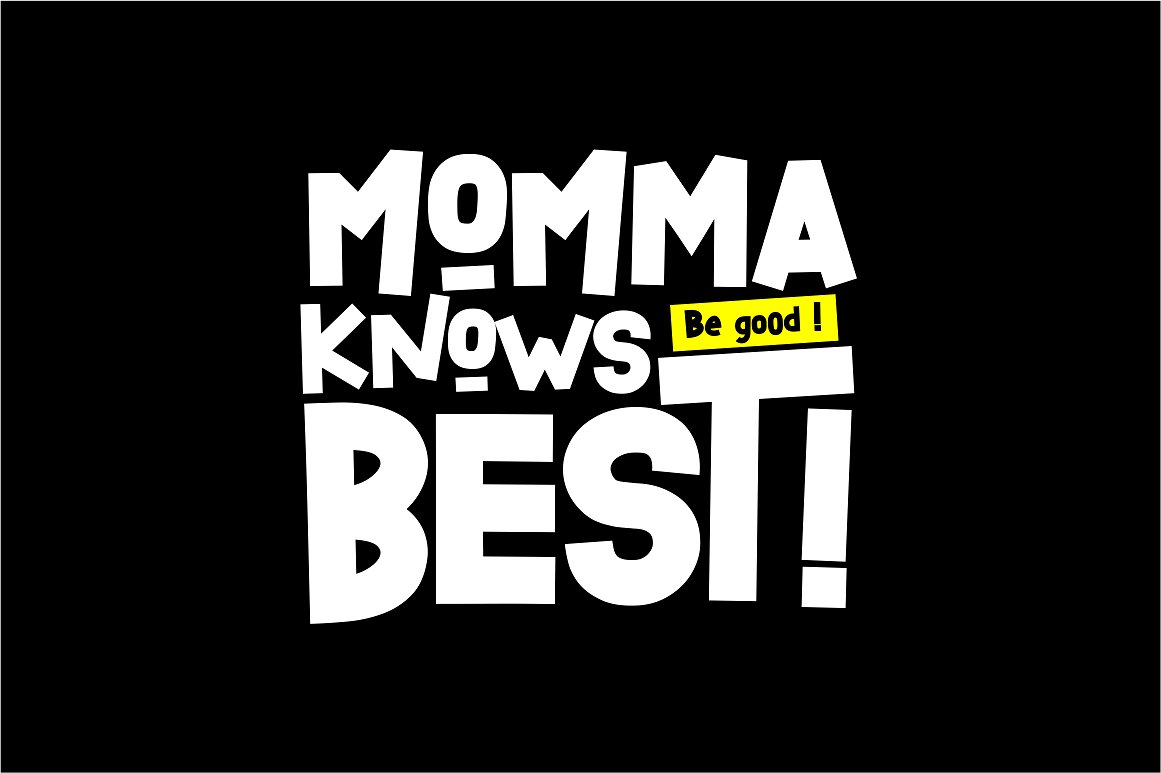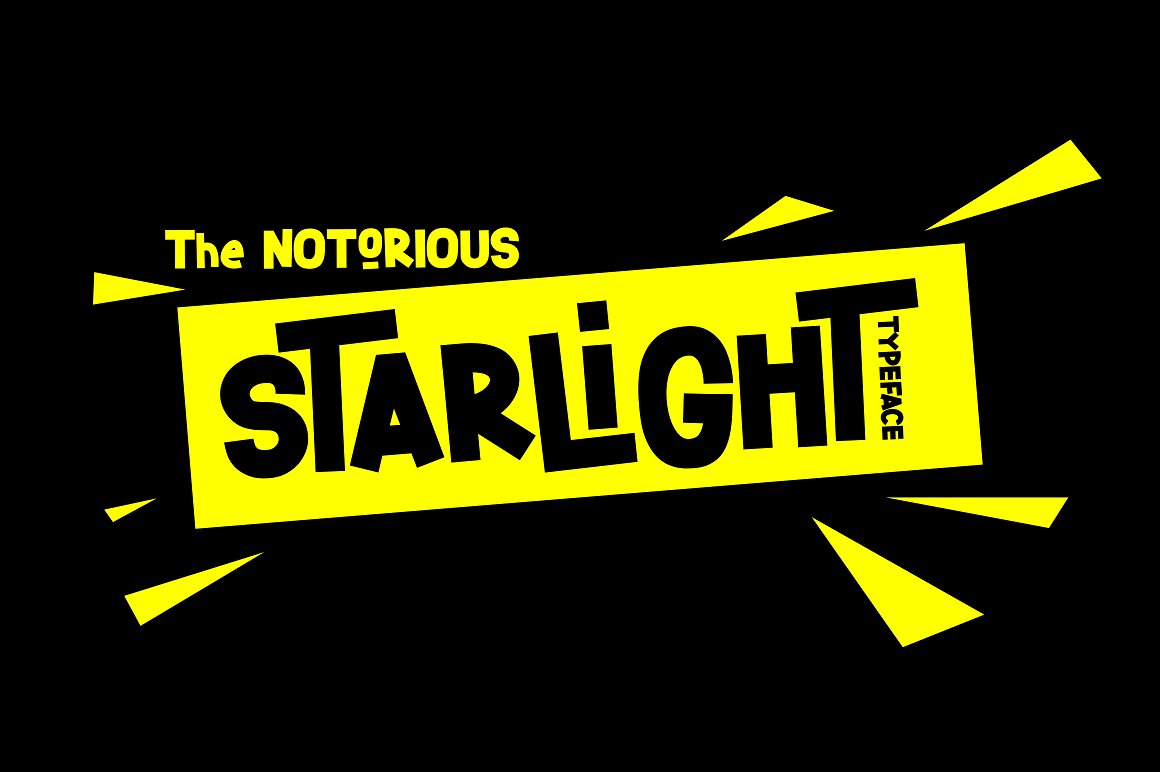
Starlight
Starlight Font
STARLIGHT ! this fun, fresh and bold typeface, comes in reguler and bouncy set (as alternates). perfect for your character logo design, summer quote, and that powerful attitude poster. go taste it.